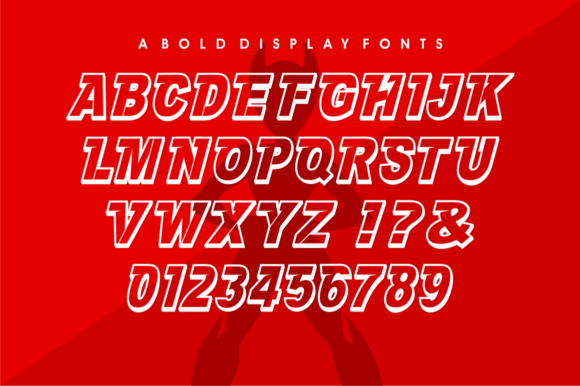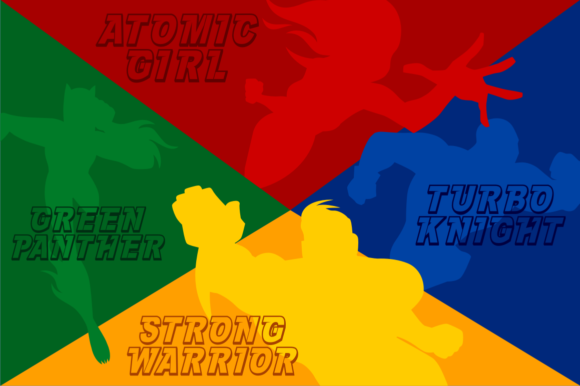
Unleash Your Imagination with the Cartoon Heroes Font
Remember that moment when you were a kid, surrounded by colorful comic books and your imagination ran wild? The thrill of creating your own superhero, with an epic name and a logo that would strike fear into the hearts of villains? As an adult, you might not be drawing comics, but that creative spark is still there, waiting to be ignited. For designers, it’s about capturing that essence and bringing it to life through their work.
Enter the Cartoon Heroes Font, a bold and eye-catching display font designed to transport your creations to a world beyond the ordinary. This font is perfect for adding a unique touch to your web designs, sport designs, or any project that requires a dash of excitement. Whether you’re a seasoned pro or just starting out, the Cartoon Heroes Font is an invaluable tool that will help you stand out from the crowd and make your mark.
- Unique Characteristics: The Cartoon Heroes Font features a playful, hand-drawn design with bold lines, vibrant colors, and whimsical details, making it perfect for creating eye-catching and engaging visual content.
- Style Options: The font includes multiple style options, including regular, bold, italic, and bold italic, allowing designers to add variety and emphasis to their text.
- Language Support: The Cartoon Heroes Font supports a wide range of languages, including Latin, Cyrillic, and Greek alphabets, making it a versatile choice for global branding and design projects.
Cartoon Heroes Font Review
The Cartoon Heroes Font is a bold and playful font that can add a fun touch to any project. Here are some of its strengths:
- ✨ Unique design: The font’s quirky and cartoon-like aesthetic makes it stand out from more traditional fonts.
- ✨ Versatility: Cartoon Heroes Font can be used for a wide range of projects, from children’s books to advertising and more.
- ✨ Expressive: The font’s expressive nature makes it perfect for conveying a sense of excitement or energy.
- ⚠️ Limited legibility: At smaller sizes, the font can become difficult to read due to its bold and playful nature.
- ⚠️ Limited customization options: While the font is available in a range of weights and styles, there are limited options for customizing the font to fit your specific needs.
- ⚠️ May not be suitable for formal projects: The font’s playful nature may not be suitable for more formal or professional projects.
Overall, I think the Cartoon Heroes Font is a great choice for projects that require a bold and playful touch. However, it may not be the best choice for projects that require a more traditional or formal look.
Tips for Getting the Most Out of Cartoon Heroes Font
1. Experiment with different font sizes and colors to create visual interest.
2. Use the Cartoon Heroes Font in combination with other bold or playful fonts to create a unique look.
3. Consider using the font for titles or headings to draw attention to important information.
Common Use Cases for Cartoon Heroes Font
The Cartoon Heroes Font is perfect for:
1. Children’s book illustrations or educational materials.
2. Cartoon-style advertisements or marketing materials.
3. Fun and playful social media posts or graphics.